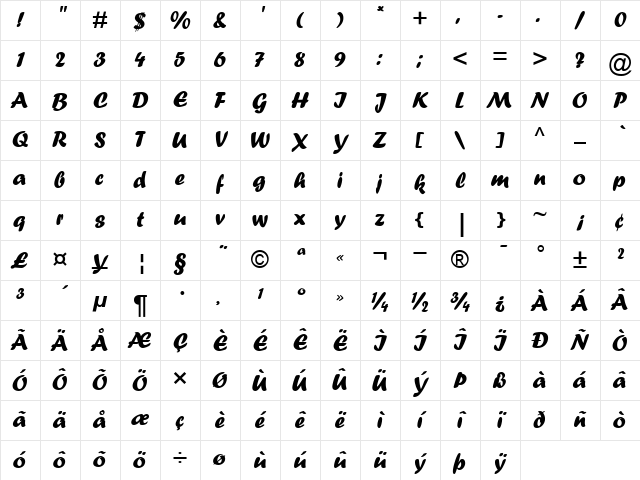
ForteMT RomanItalic
Design Context for ForteMT
ForteMT is a composed and adaptable typeface that performs quietly and consistently across a wide range of design contexts. The slanted form adds forward momentum and visual energy.
Pro Tip: Use ForteMT for emphasis, pull quotes, and subheadings where its slanted energy can add rhythm to the layout.